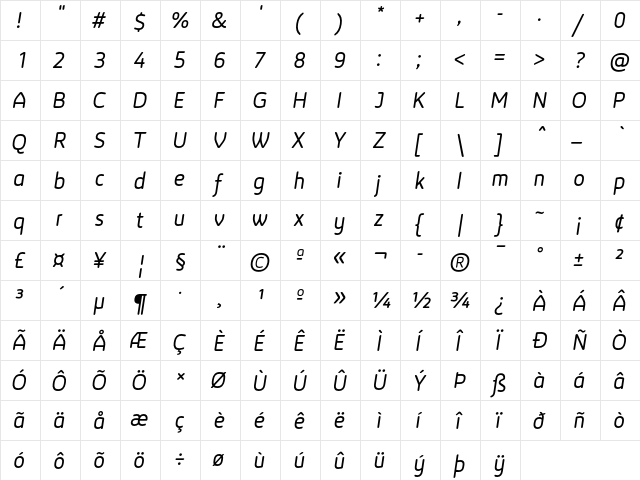
LT Reponse Rounded Two Italic Font Preview
Design Context for LT Reponse Rounded Two Typeface
LT Reponse Rounded Two uses gentle rounded endings to create a warm, inviting typographic personality — less corporate than geometric sans, more refined than playful display fonts. Its italic angle brings a sense of urgency and motion to the letterforms. Its slender proportions lend an understated elegance to any composition.
A natural fit for tech startups, health and wellness brands, children's products, and friendly consumer apps.
Font Pairing: Pairs well with a rounded or humanist sans for body copy, maintaining the friendly tone without relying on LT Reponse Rounded Two to carry extended reading.
Pro Tip: Pair LT Reponse Rounded Two with a geometric sans for a balanced system — the rounded softness works as a warm counterpoint to harder-edged companions.